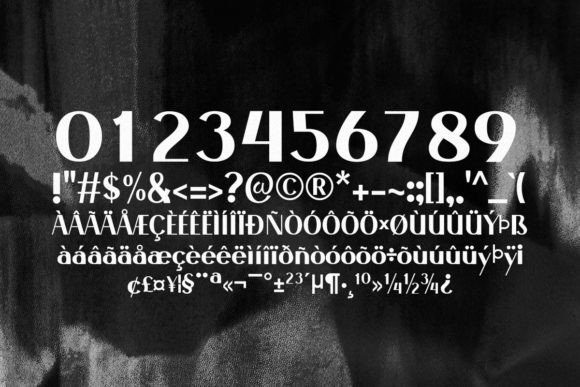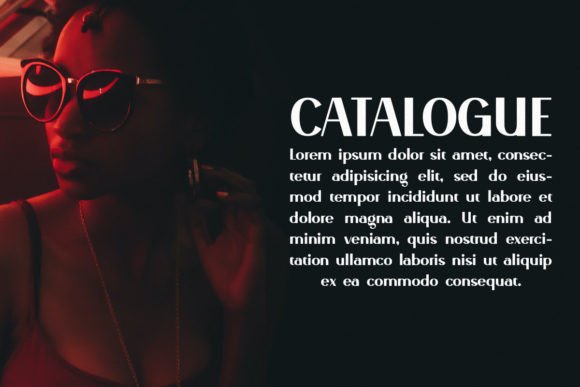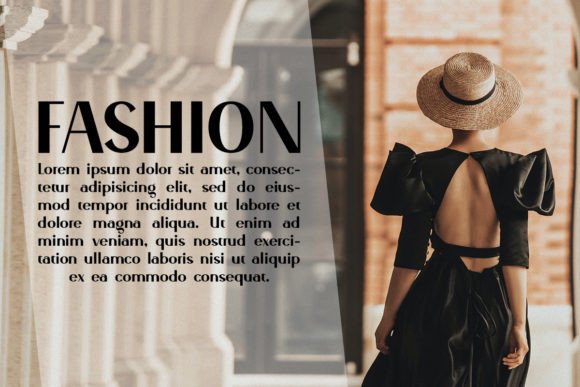
Introduction to Loly Lane Font
Do you remember that moment when a single font choice changed the entire vibe of your creative project? For many designers, that moment is a game-changer. As you’re brainstorming ideas for your next design, you might be searching for the perfect font to elevate your visuals. In this article, we’ll explore a bold and modern sans serif display font that’s sure to make a statement: the Loly Lane Font.
This versatile font is not just a design resource, but a powerful tool to express your creativity and confidence. With its striking details on each side of the lettering, the Loly Lane Font is perfect for projects that require a vintage-inspired feel or a bold classic look. Whether you’re working on a design project with a transparent background or need a high-quality font for your next creative endeavor, this font is a valuable addition to your design arsenal.
Key Features of Loly Lane Font
- Unique, hand-drawn design style perfect for creative projects
- Includes a range of ligatures and swashes to enhance typographic creativity
- Perfect for designers looking for a distinctive, elegant font for their designs
Honest Review: Loly Lane Font
As a designer, I’m always on the lookout for high-quality design resources that can elevate my creative projects. Recently, I had the chance to try out the Loly Lane Font, and I must say, it’s been a game-changer. ✨
One of the standout features of the Loly Lane Font is its transparent background, which makes it incredibly easy to use in combination with other design elements. This level of flexibility is a major advantage for designers who need to work with complex design compositions.
Here are some of the key features that I love about the Loly Lane Font:
- Highly versatile and adaptable
That being said, there are a few limitations to keep in mind:
- The font may not be suitable for print-based projects due to its digital origins
- The font family is relatively small, which may limit its use in certain contexts
- The font may not be compatible with all design software
Overall, I’m really impressed with the Loly Lane Font, and I would highly recommend it to designers looking for a high-quality, versatile design resource. ✨
The Loly Lane Font is ideal for use in a variety of situations, including:
- Designing a logo for a new business
- Creating social media graphics for a brand
- Developing a presentation for a conference
For the best results, use the Loly Lane Font with a transparent background to create a clean and modern design. You can also experiment with different font sizes and colors to add visual interest to your project.